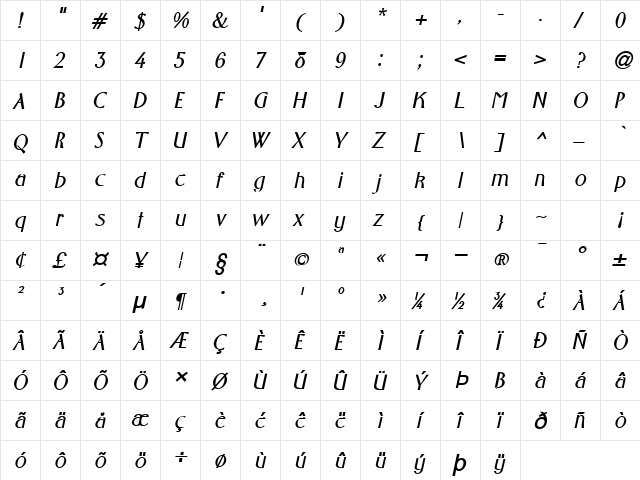
Wright Bold Italic
Design Context for Wright Typeface
Wright takes a measured approach to typography — its balanced proportions and neutral character make it a reliable workhorse for both digital and print work. The slanted form adds forward momentum and visual energy. The heavy weight commands attention and anchors typographic hierarchies.
Pro Tip: Use Wright for emphasis, pull quotes, and subheadings where its slanted energy can add rhythm to the layout.